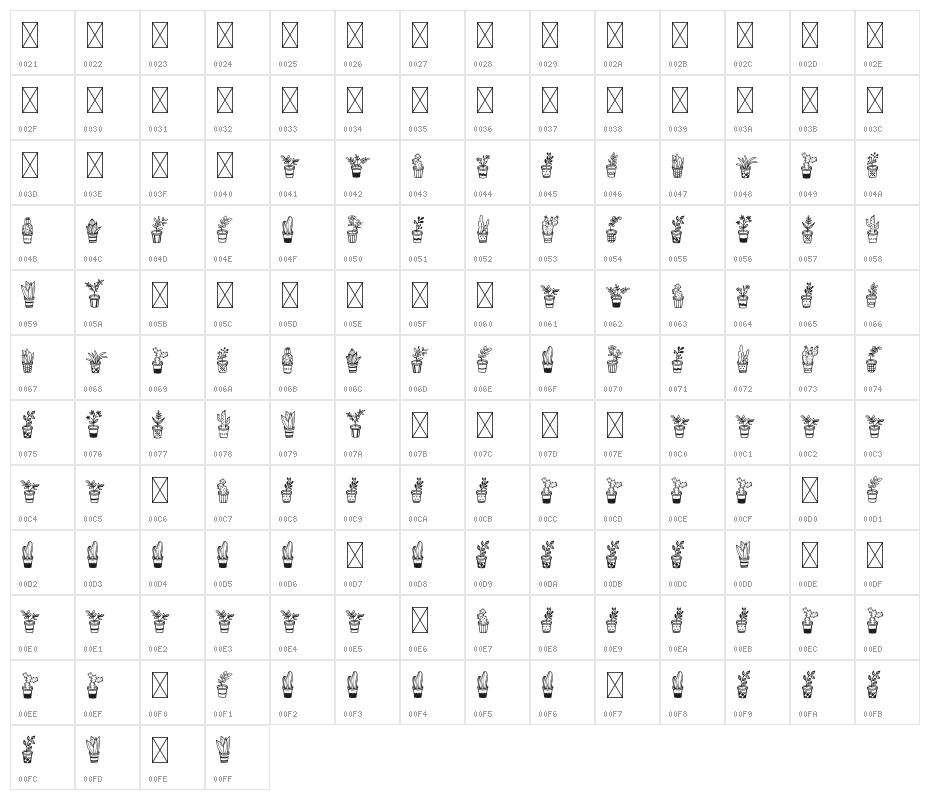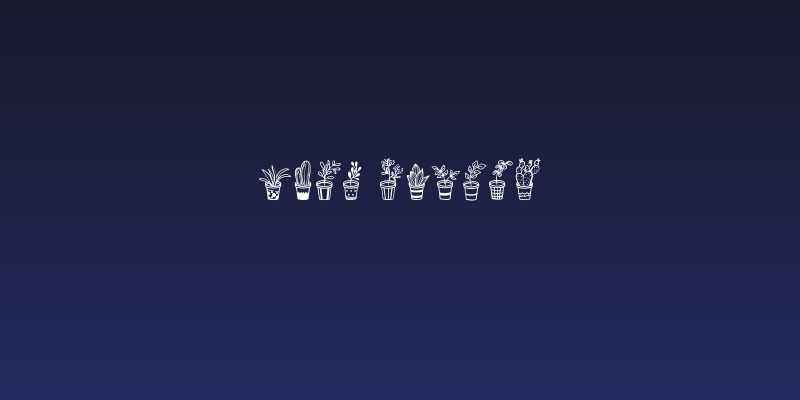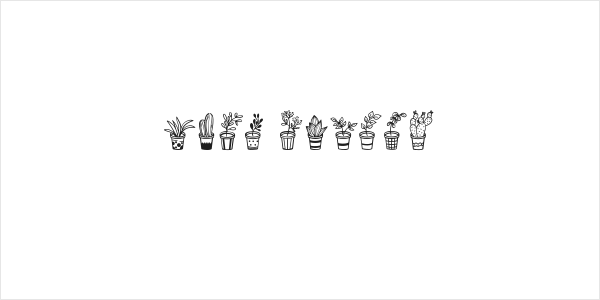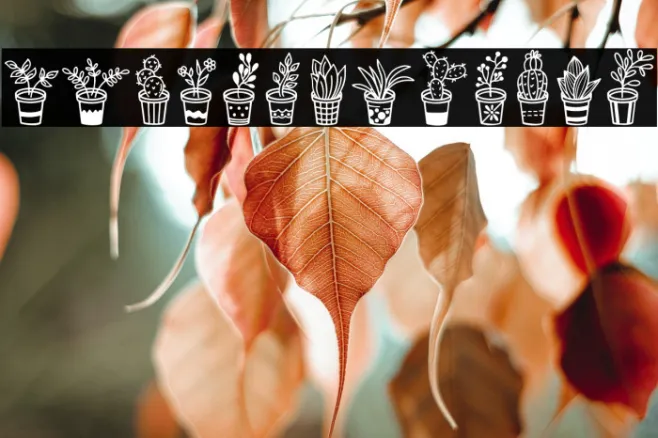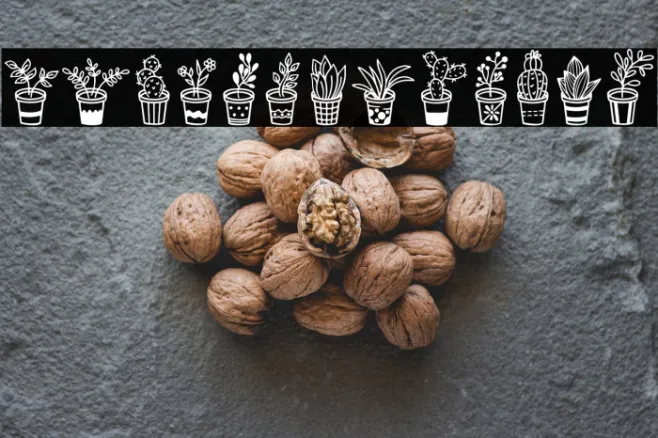
Home Plants Font
Home Plants Description
A playful, hand-drawn decorative font featuring potted plants and cacti illustrations for each character, rendered in bold black lines with whimsical, organic shapes.
| Overall Style | Decorative, Whimsical, Playful |
| Use Case | Headlines, Logos, Posters, Crafts |
| Proposed Projects | Greeting cards, eco-friendly branding, children’s books, posters, invitations, social media graphics. |